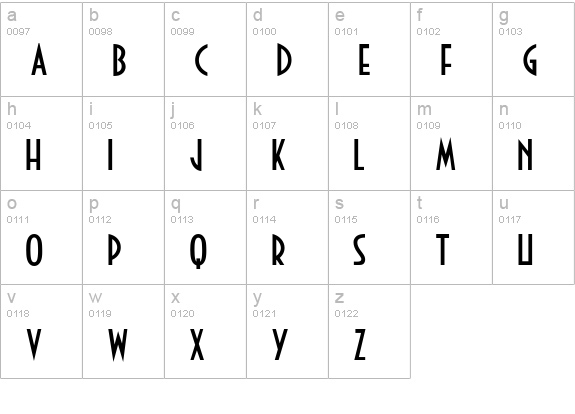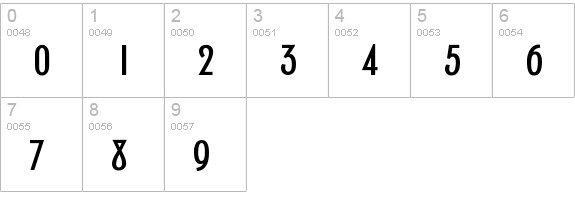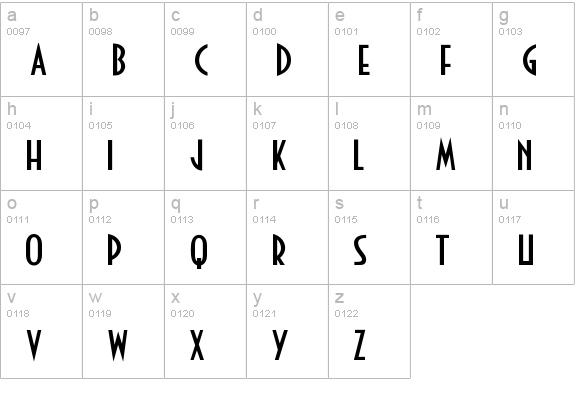
Guest Check Font Details
The Guest Check font is a stylish and versatile typeface that exudes a classic and timeless aesthetic. With its clean lines and elegant curves, this font is perfect for a wide range of design projects, from invitations to branding to packaging. The best part? It's completely free to download at FontsMarket.com. So go ahead and add a touch of sophistication to your next project with the Guest Check font.